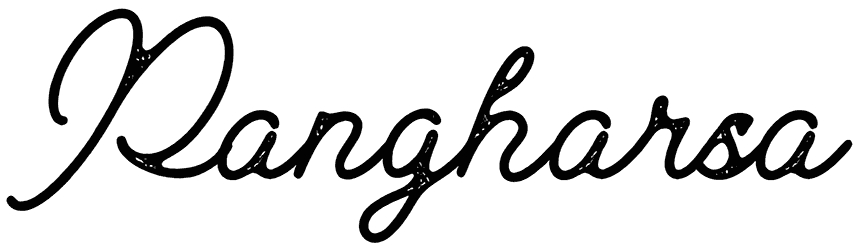
Pangharsa Font
If your design needs a unique and classic mood, this smooth retro font would be an impressive pickup. The characters of this handwritten font are realistic and cursive, but it doesn’t have most punctuation marks. Pangharsa font is going to add a charming visual to your historical movie poster or other projects.